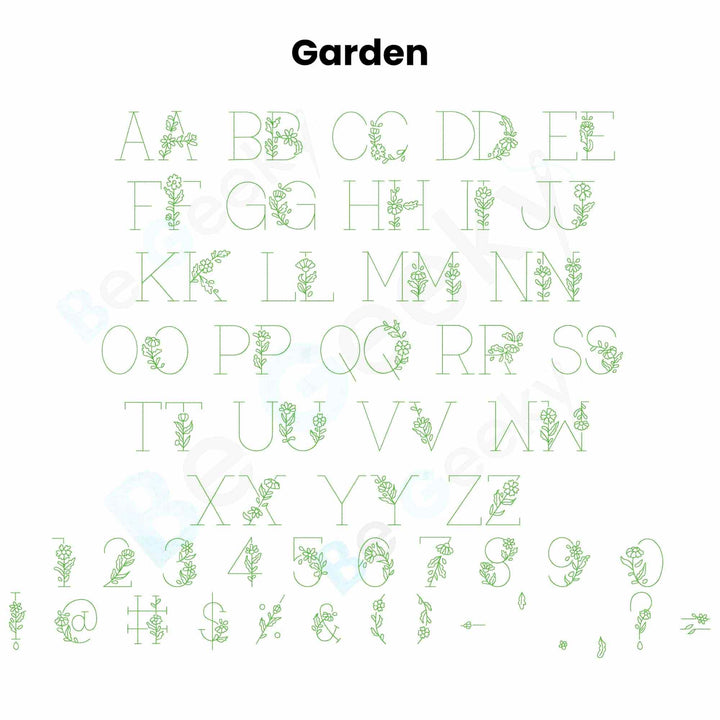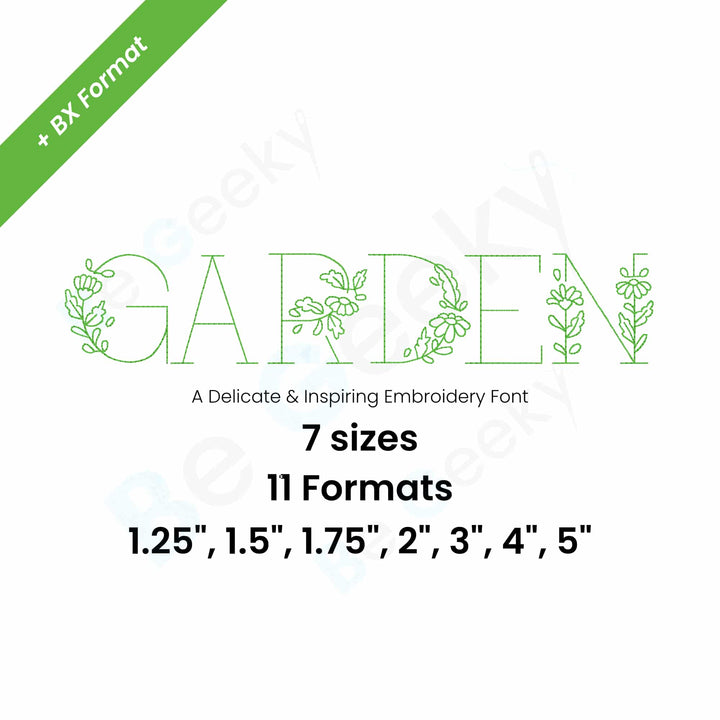
Garden Digital Embroidery Font
Our delicately crafted Garden digital embroidery font font is perfect for those looking to add a touch of nature-inspired sophistication to their embroidery projects.
Let your creativity bloom as you explore the enchanting world of Garden, where each letter is thoughtfully designed to harmoniously blend with a stunning array of floral elements. This one-of-a-kind font set includes one set of regular alphabet and one set of floral aphablet characters, plus numbers, and punctuation, ensuring versatility for all your embroidery needs.
Whether you're personalizing a gift, adorning a wedding keepsake, or adding a special touch to your home décor, the Garden Font will bring your projects to life with its refreshing and organic style. Transform your designs into works of art and watch as your embroidered text flourishes into a vibrant garden of colors and textures.
Included: Letters, Numbers, Puncuation
Stitch Type: Run Stitch